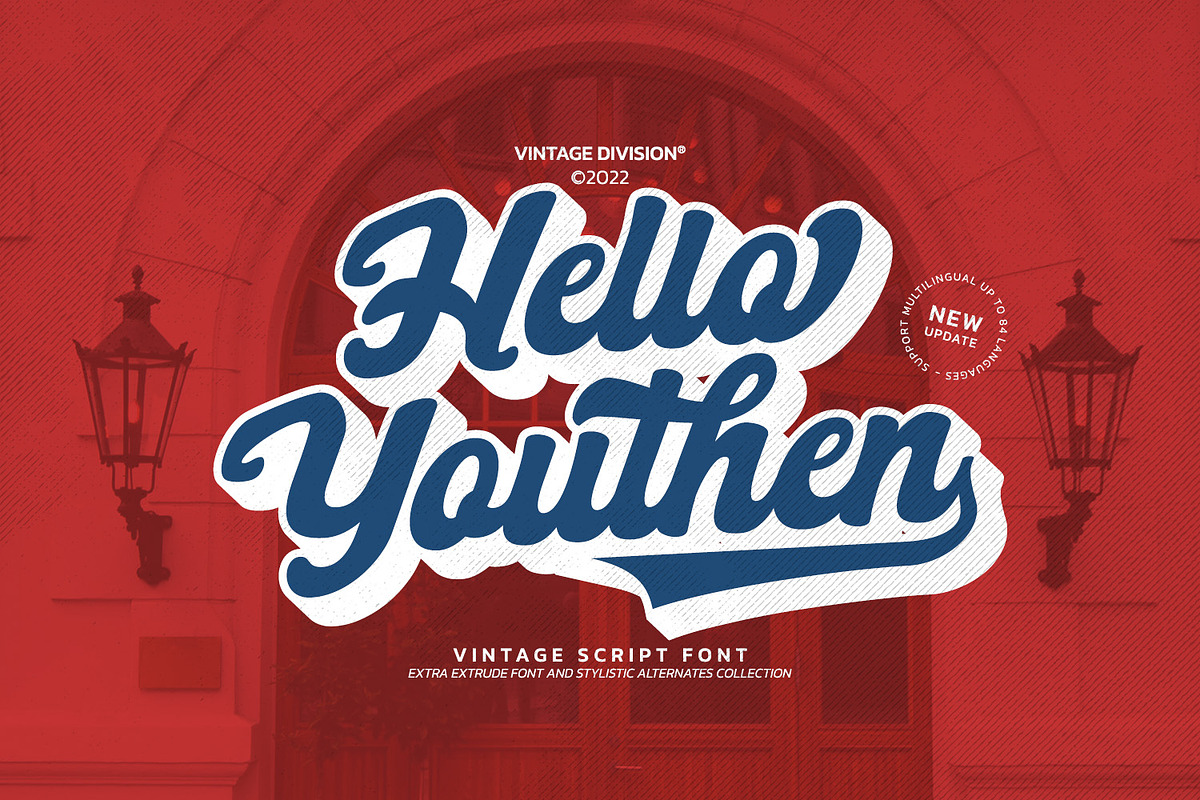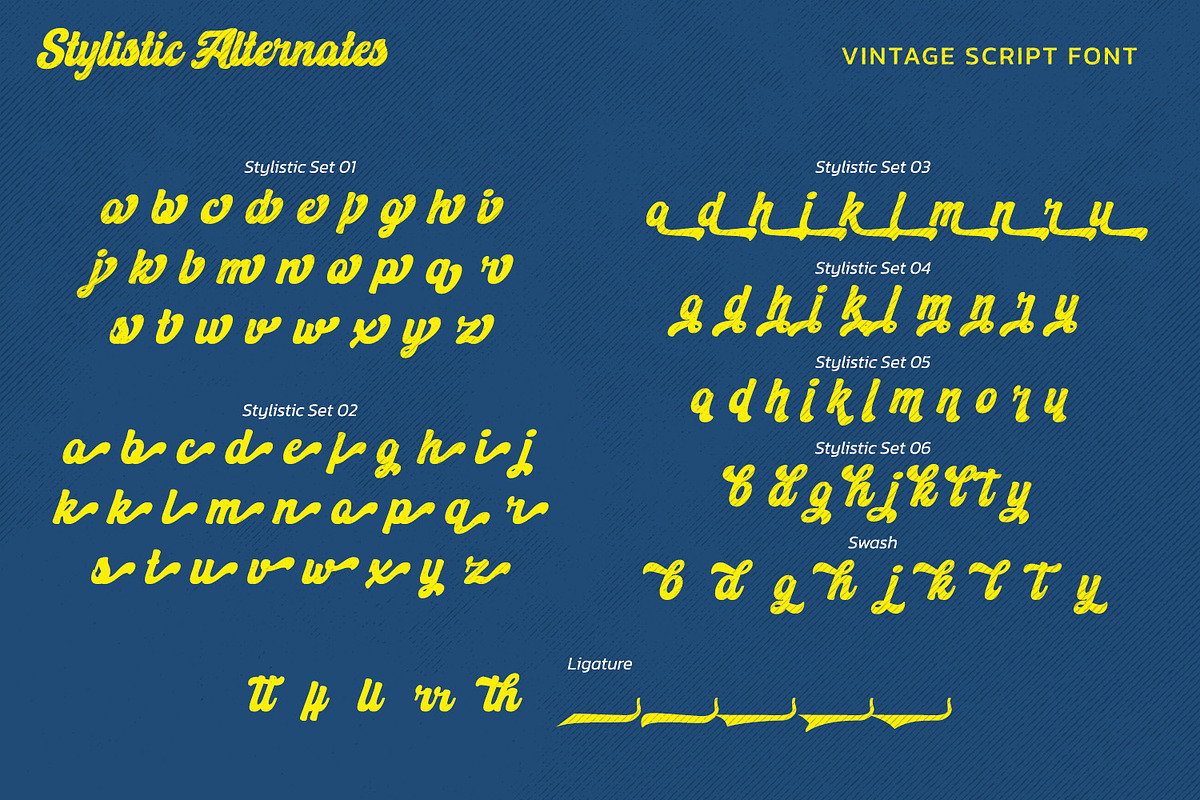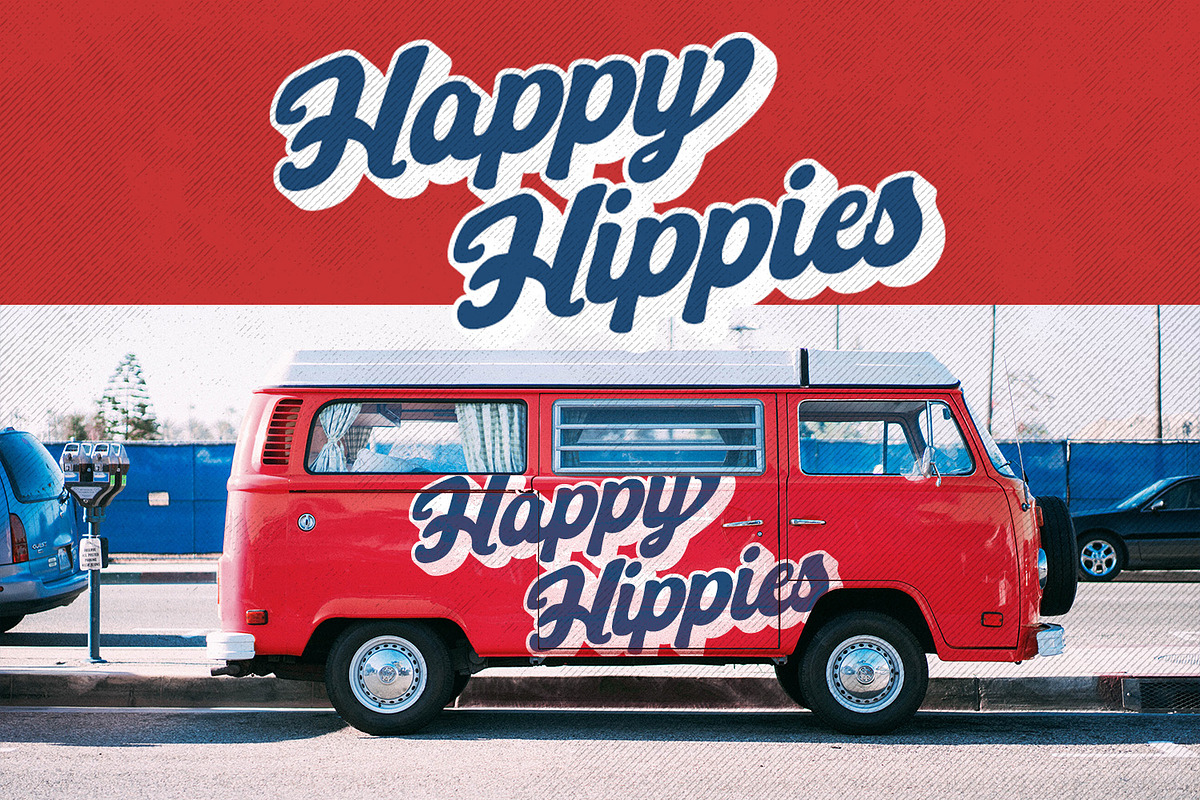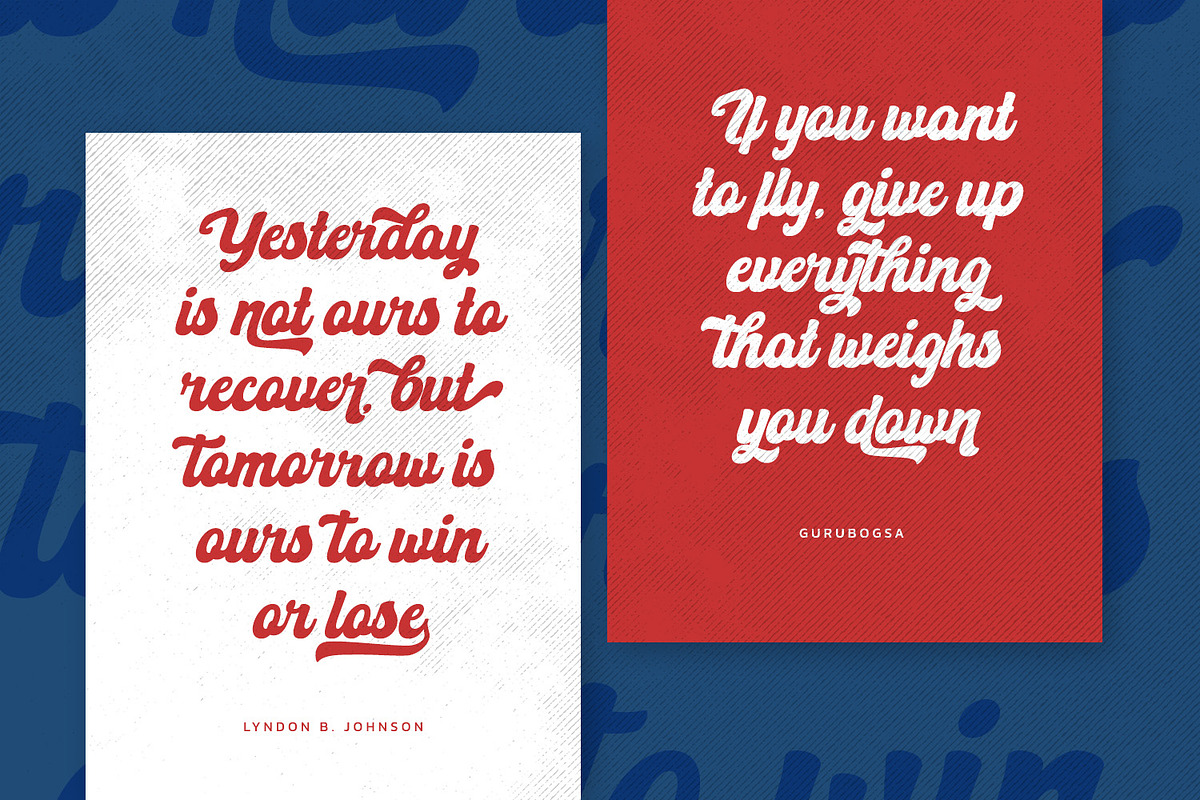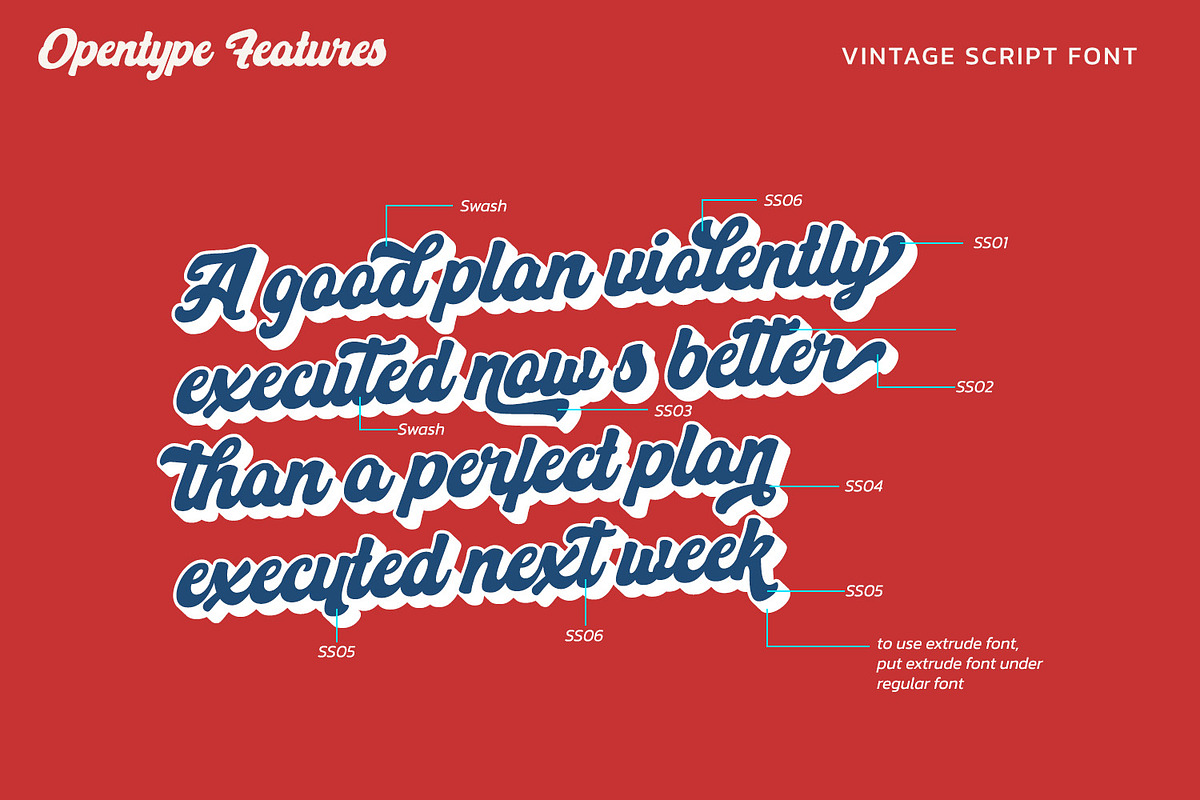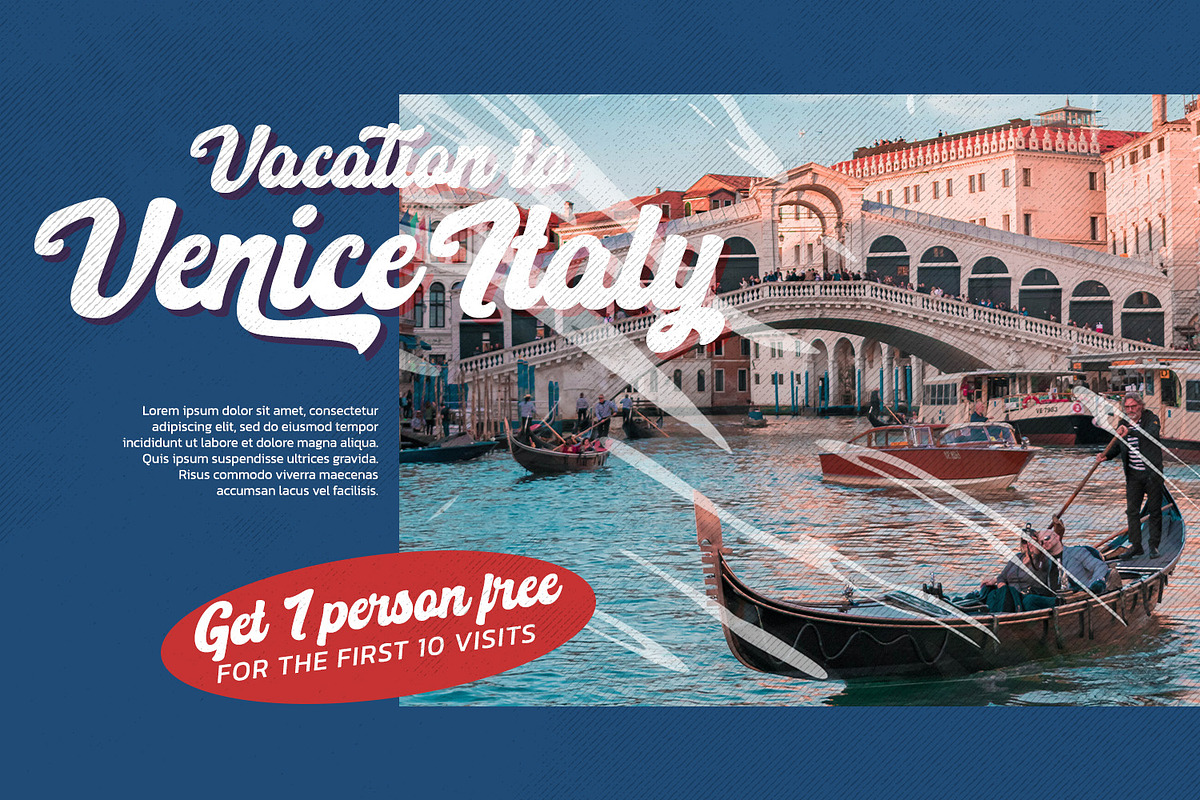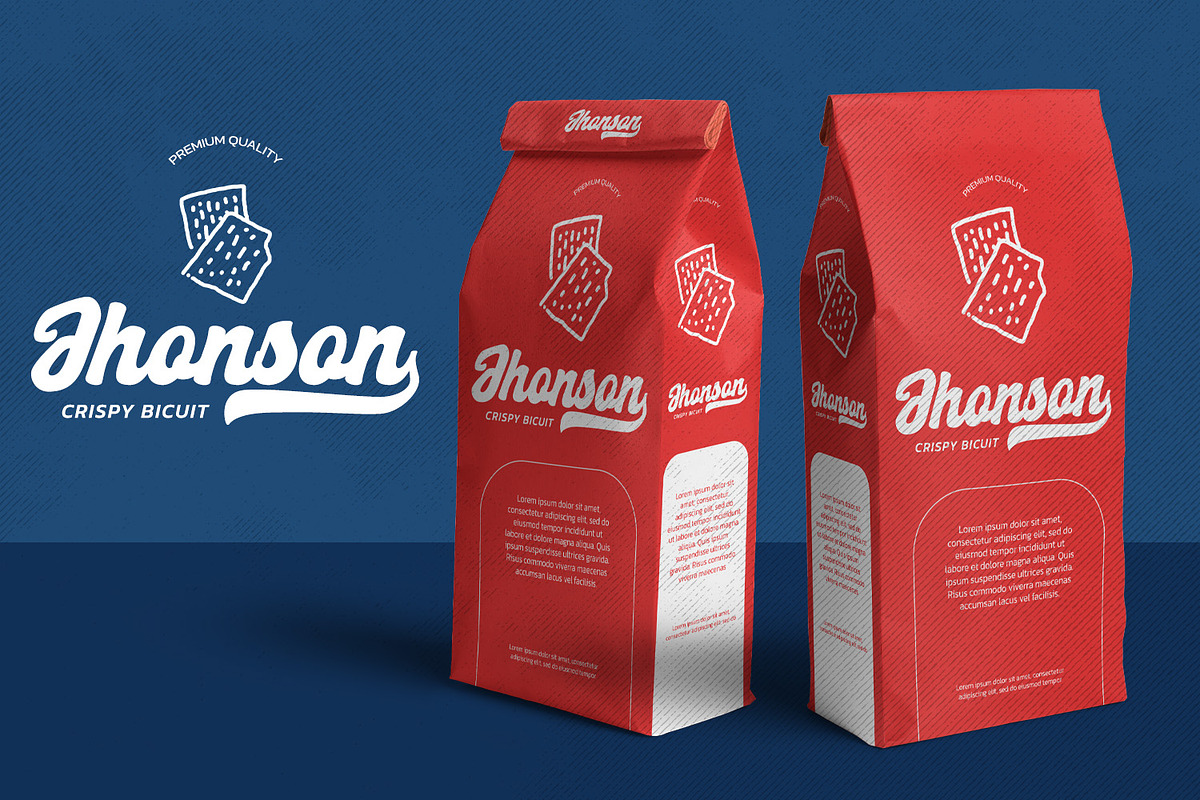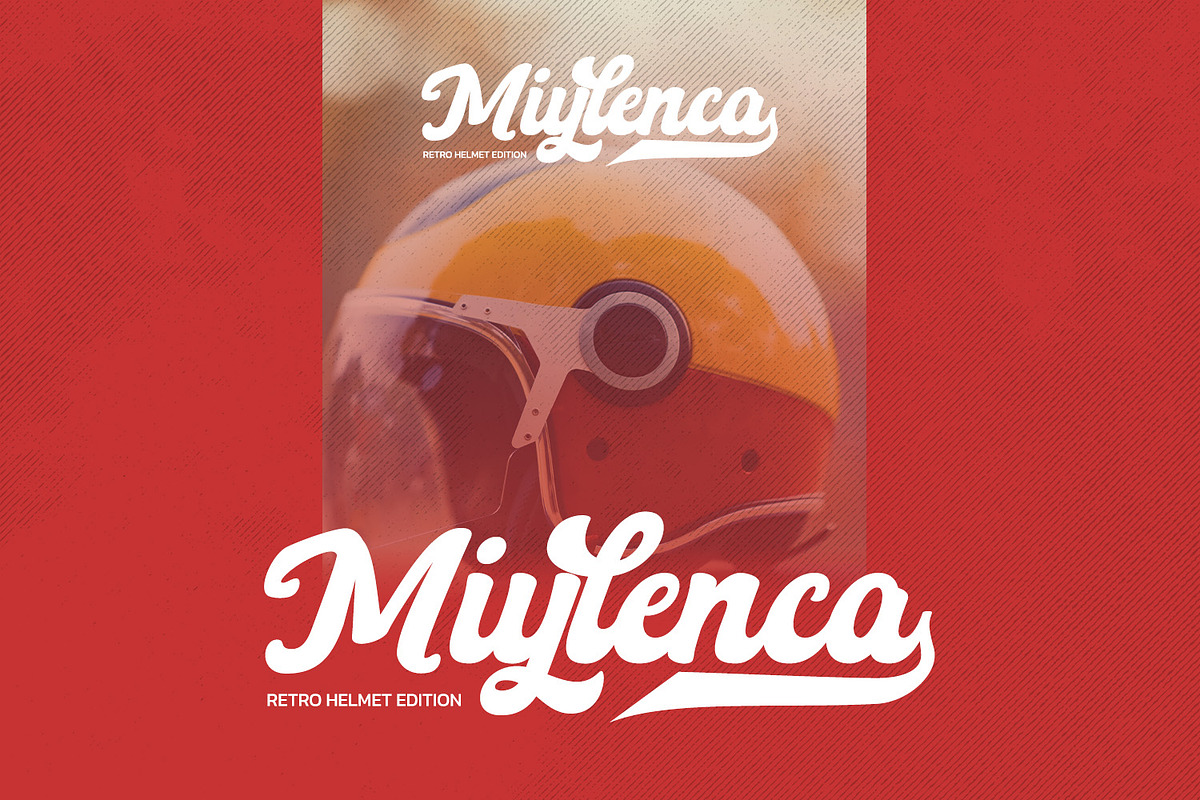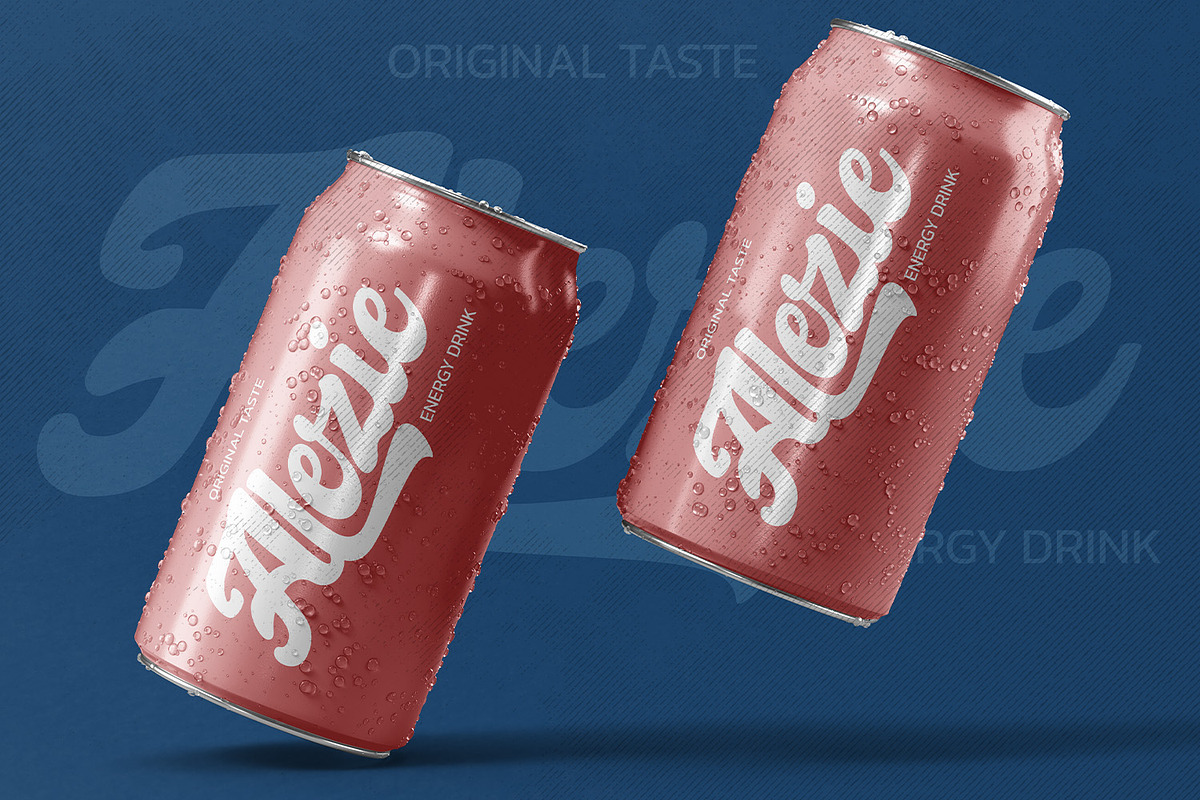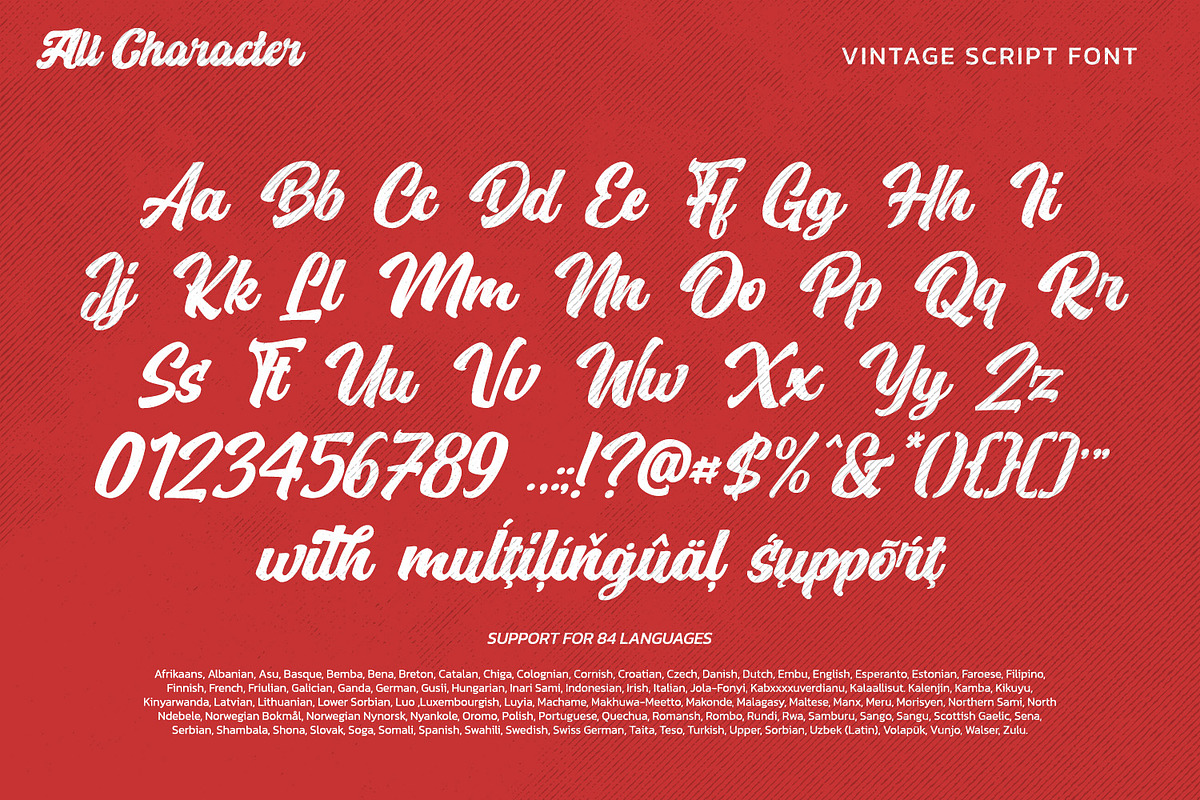
Hello Youthen
Hello Youthen is a script font that comes with exquisite character changes, a kind of classic decorative copper script with a modern twist, designed with high detail for a fun style. This font features thick and angular letters that easy on the eyes and nice to look while it’s also easy to read. Hello Youthen becomes more special with extruding version option. Well suited to titles, poster designs, branding, logos, and many more.
Our font always includes Multilingual Support to make your branding reach a global audience.